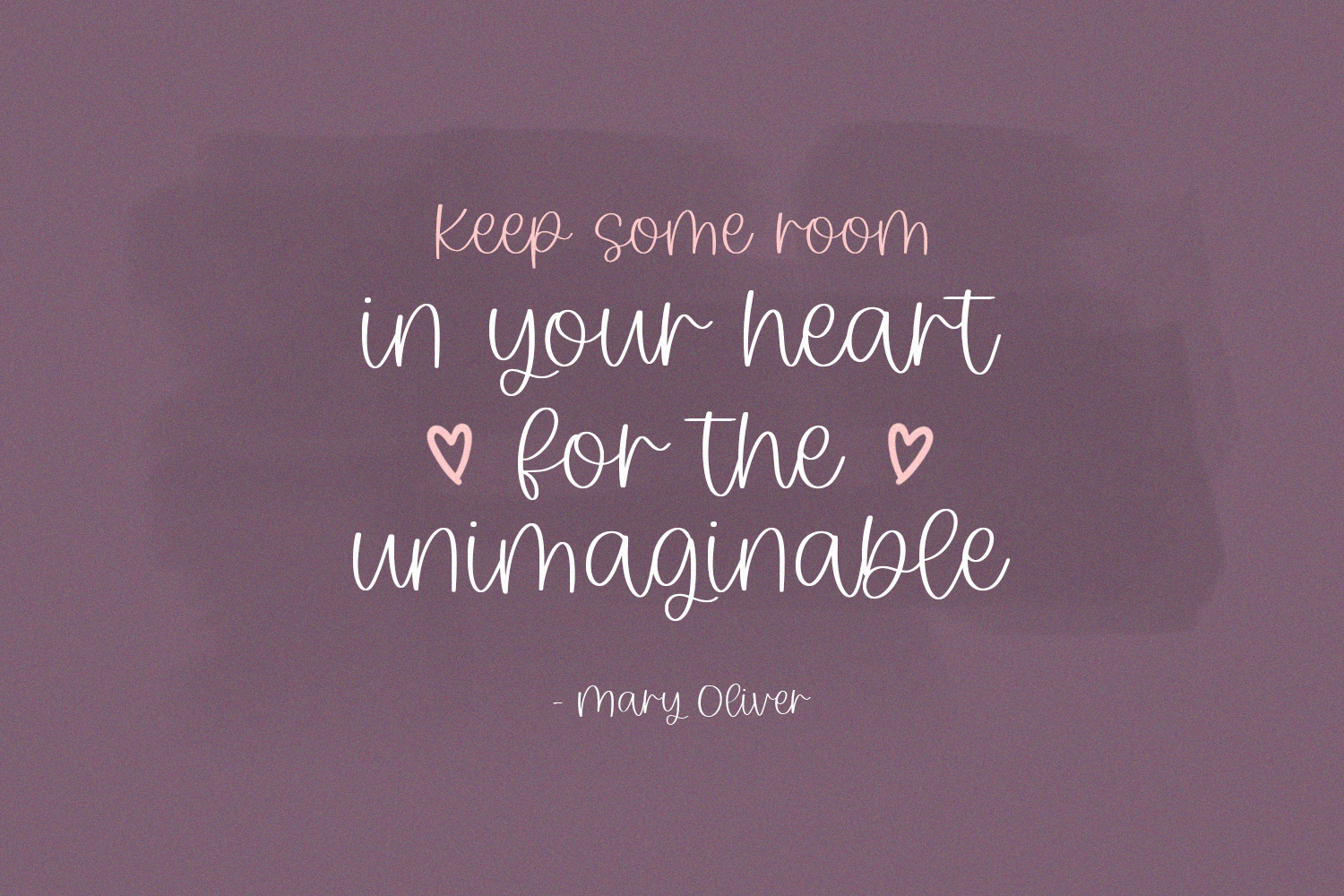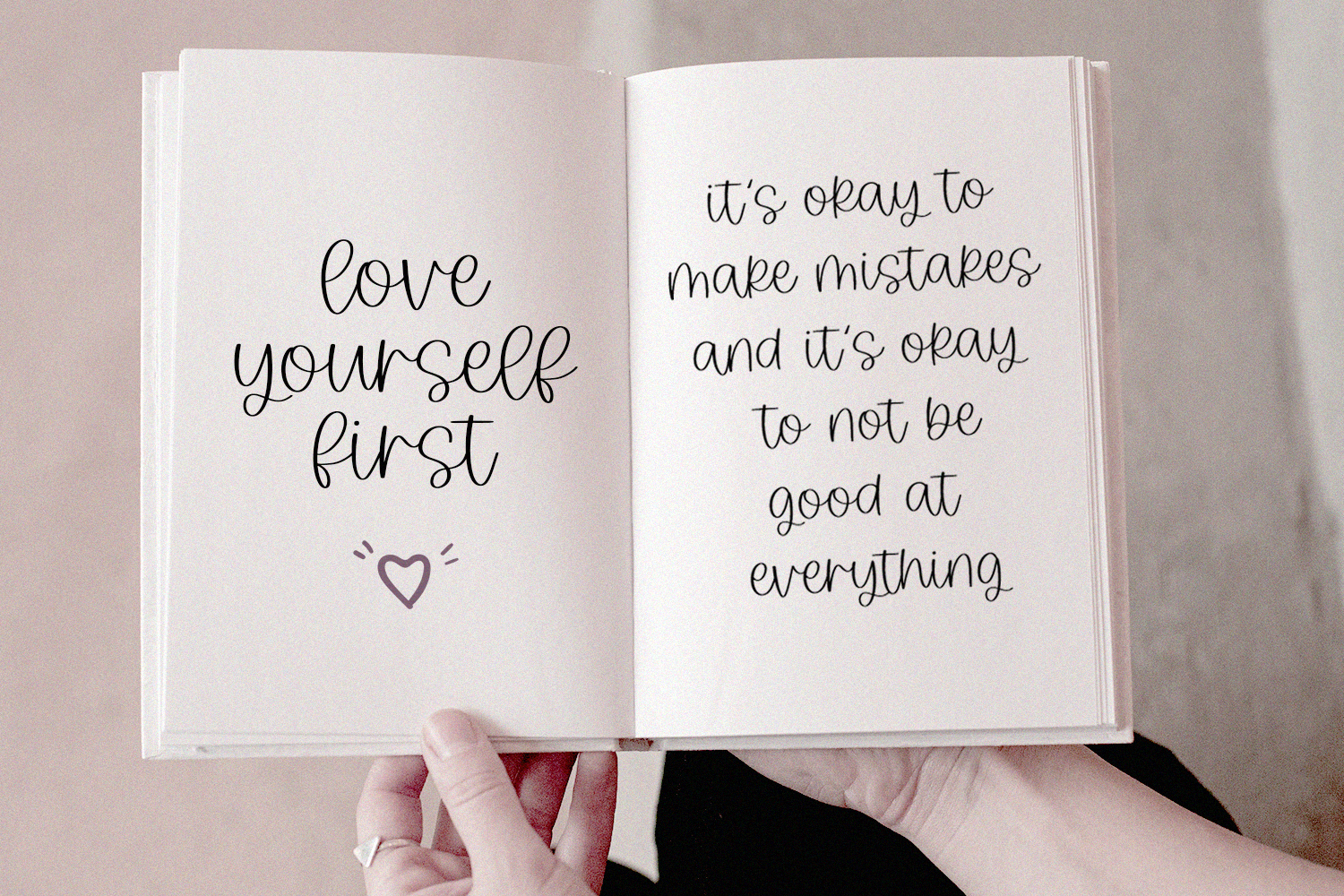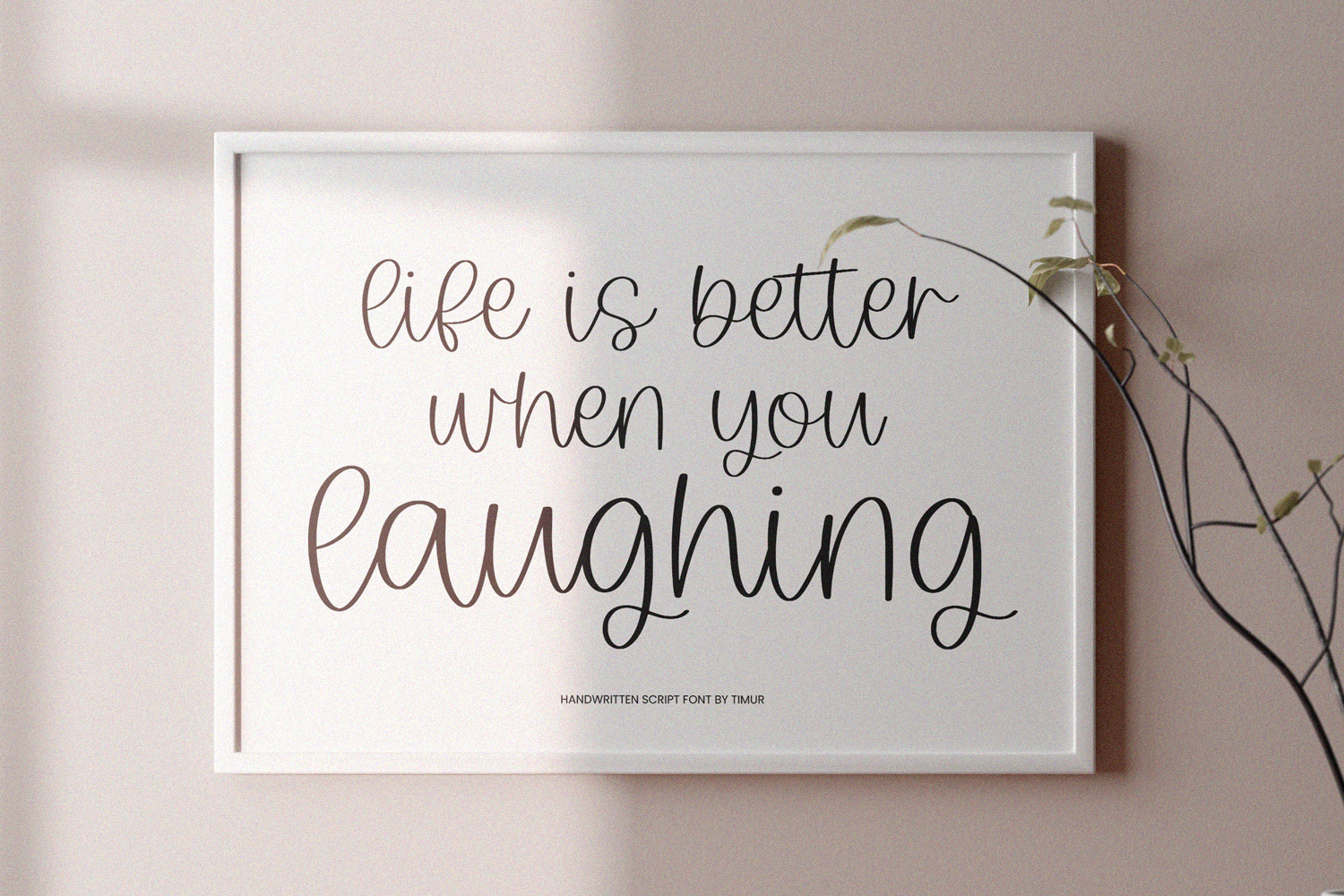
Sweetsofia Font
Sweetsofia Script Font is a dazzling script font. This font is neatly crafted and highly detailed. Whatever the topic, this font will be a wonderful asset to your font library, as it has the potential to enhance any creation.